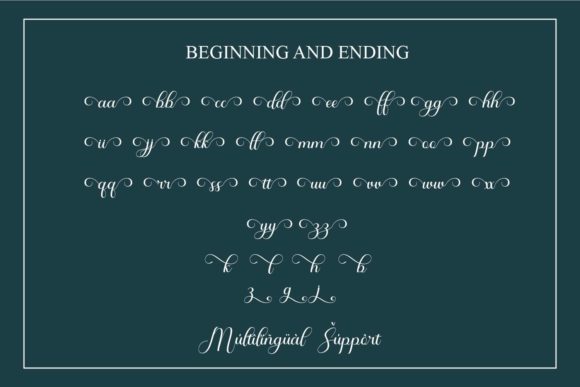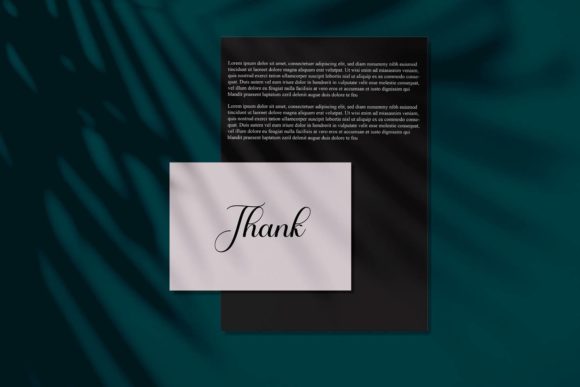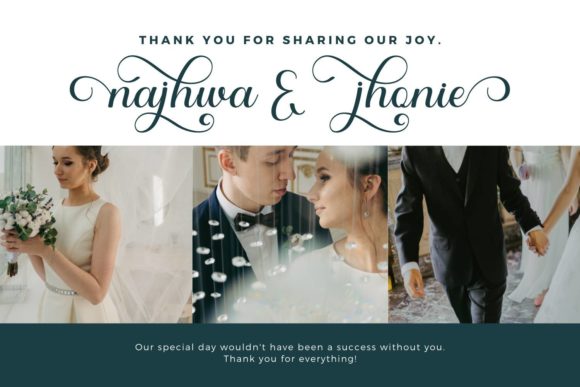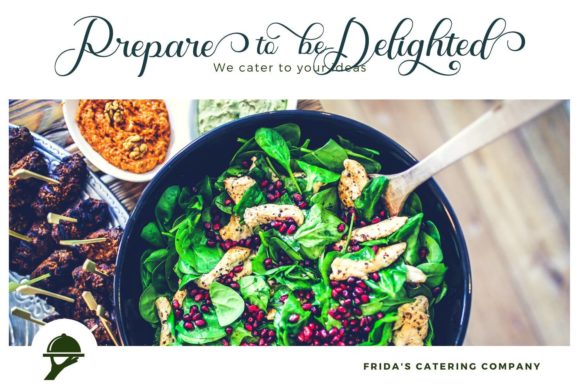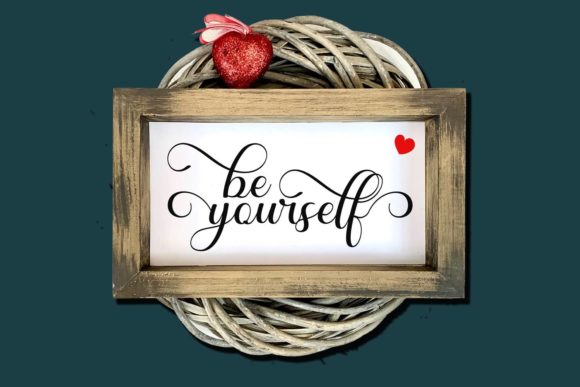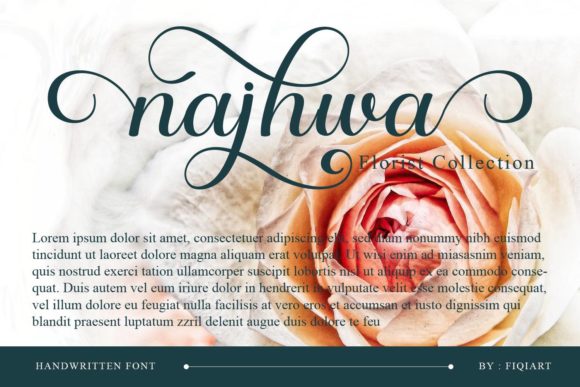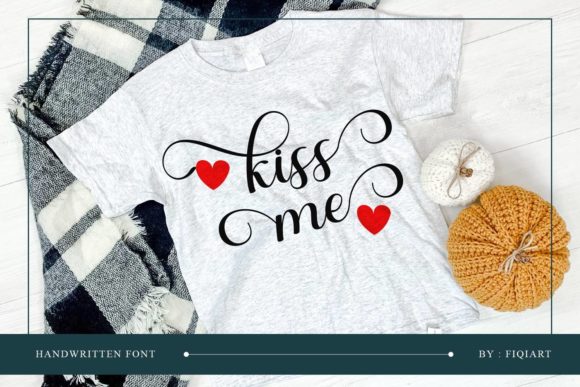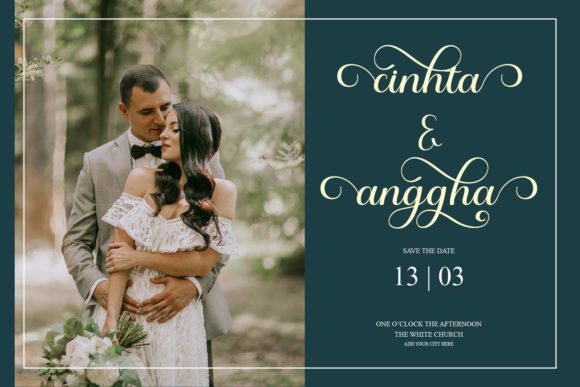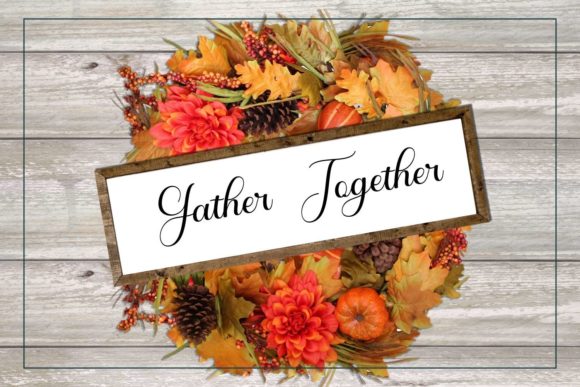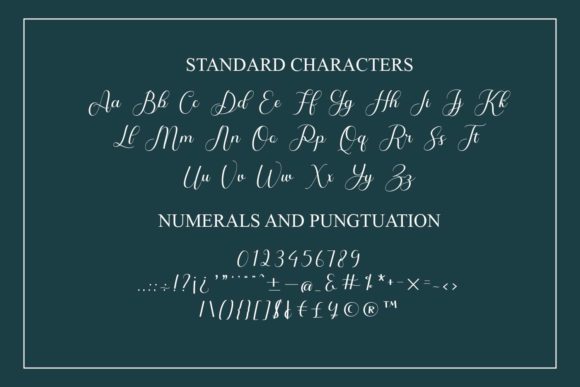
Angelin Font
Angelin is a unique and elegant handwritten font that adds a touch of sophistication and personalization to your design projects. With its beautifully crafted letterforms and versatile style, Angelin is a perfect choice for a variety of designs, including wedding invitations, thank you cards, greeting cards, logos, and more.
The uniqueness of Angelin lies in its distinctive hand-drawn style. Each letter is meticulously crafted with attention to detail, resulting in a font that stands out and captures the eye. The elegant strokes and curves of Angelin give it a graceful and refined appearance, making it perfect for creating personalized and memorable designs.
One of the strengths of Angelin is its versatility. Whether you’re designing wedding invitations for a romantic celebration or crafting a logo for a sophisticated brand, Angelin can adapt to various design themes and purposes. Its elegant and personalized style adds a touch of charm and sophistication to any project.
Another advantage of Angelin is its PUA encoding. PUA stands for “Private Use Area,” which means that you can access additional glyphs and swashes that are not typically available on a standard keyboard. This allows you to further customize and embellish your designs with unique and decorative elements, enhancing the overall aesthetic appeal.
By incorporating Angelin into your design projects, you can create visually stunning and personalized pieces that leave a lasting impression. Whether you’re aiming for a romantic and whimsical look or a more refined and elegant style, Angelin provides you with the tools to bring your creative vision to life.
In summary, Angelin is a unique and elegant handwritten font that adds a touch of sophistication and personalization to your design projects. With its meticulously crafted letterforms, versatile style, and PUA encoding, Angelin is a perfect choice for creating beautiful and memorable designs for various occasions and purposes. Embrace the charm of Angelin and let it elevate your designs with its elegance and uniqueness.